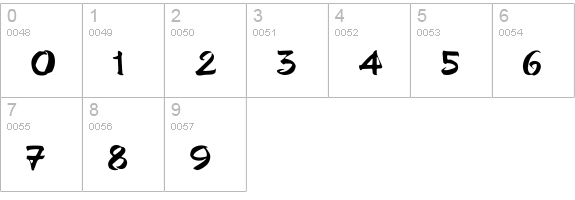
SoloSemiscrip Font Details
SoloSemiscrip is a stunningly elegant and versatile font that effortlessly combines the classic beauty of script typography with a modern twist. Its flowing lines and delicate curves create a sense of grace and sophistication, making it perfect for a wide range of design projects. This font is a true masterpiece, meticulously crafted to bring your designs to life. Whether you're designing a logo, creating a wedding invitation, or crafting a beautiful piece of typography art, SoloSemiscrip will elevate your work to new heights. One of the most remarkable aspects of SoloSemiscrip is that it is freely available to download at FontsMarket.com. This means that you can add this extraordinary font to your collection without any cost, allowing you to unleash your creativity without any limitations. Featuring a vast array of alternate characters, ligatures, and swashes, SoloSemiscrip offers endless possibilities for customization. You can easily create unique and captivating designs by simply mixing and matching these elements, giving your projects a truly personalized touch. The versatility of SoloSemiscrip is further enhanced by its wide language support, ensuring that you can use this font to communicate your message effectively across different cultures and regions. From English to Spanish, French to German, SoloSemiscrip effortlessly adapts to suit your needs. With its smooth and flawless execution, SoloSemiscrip delivers exceptional legibility, even at smaller sizes. This makes it an ideal choice for body text in editorial designs, ensuring that your content is both visually appealing and easy to read. Whether you're a professional designer or a passionate hobbyist, SoloSemiscrip is a must-have font in your toolkit. Its timeless beauty, versatility, and the fact that it is freely available to download at FontsMarket.com make it an irresistible choice for all your design endeavors. Elevate your projects with SoloSemiscrip and let your creativity soar to new heights.